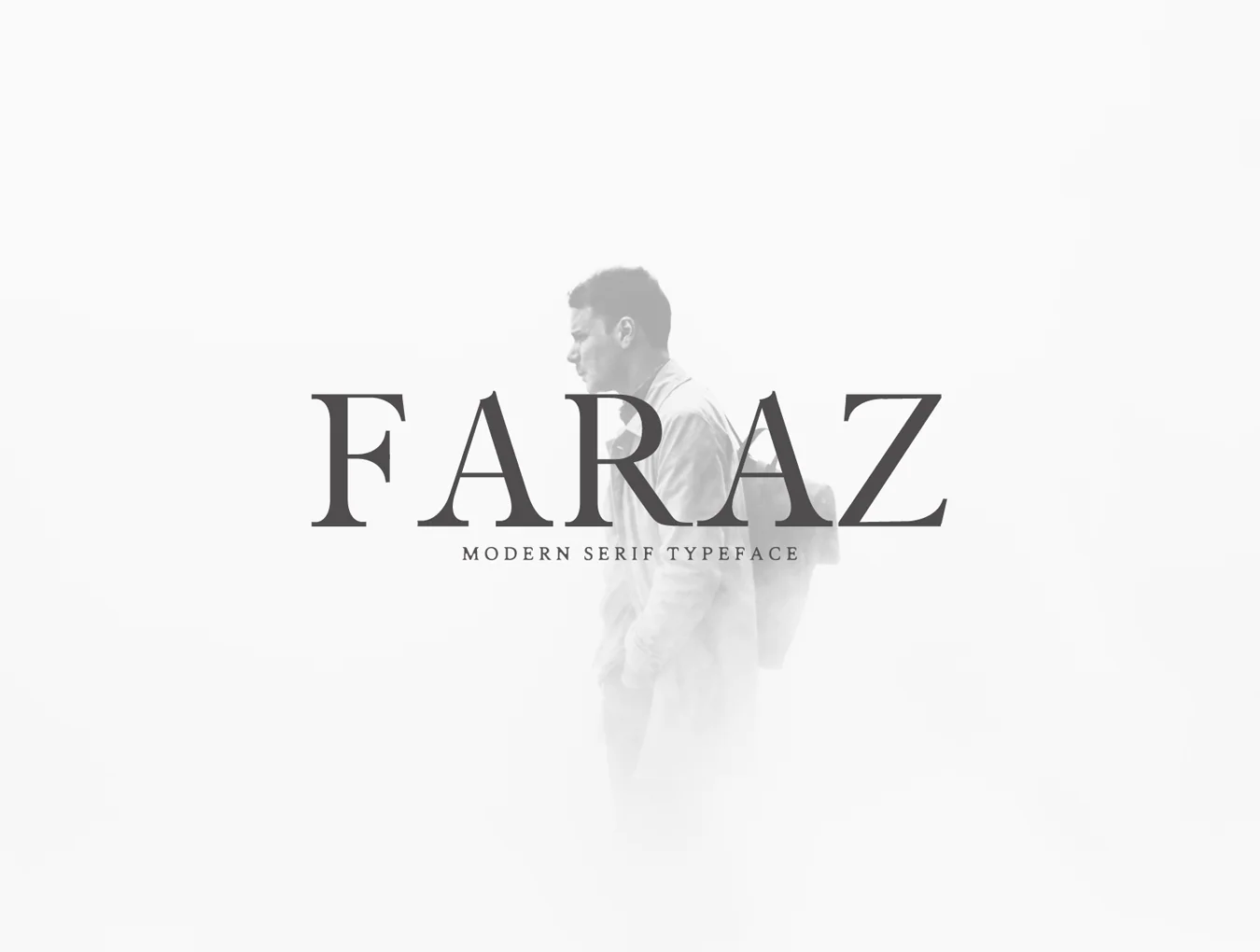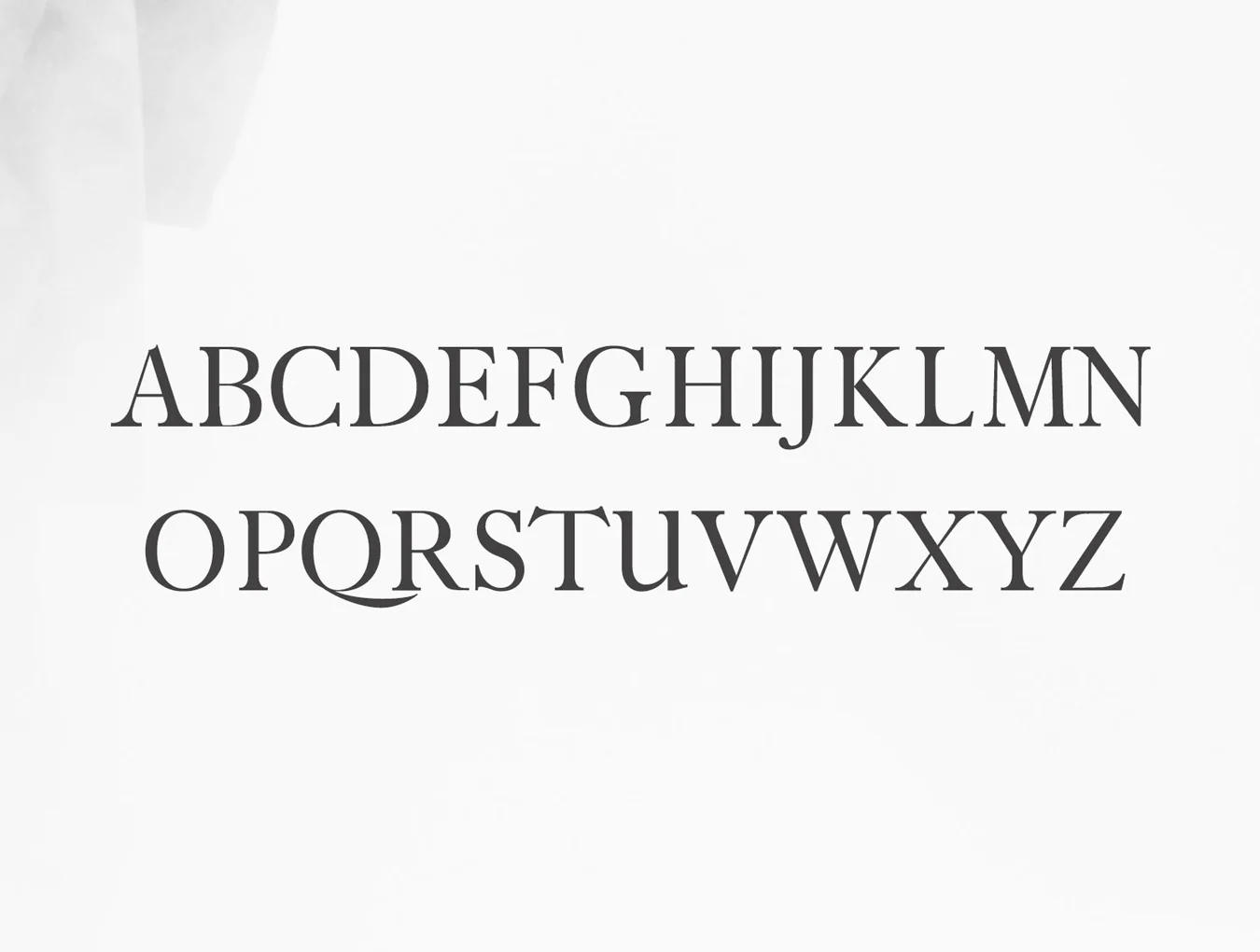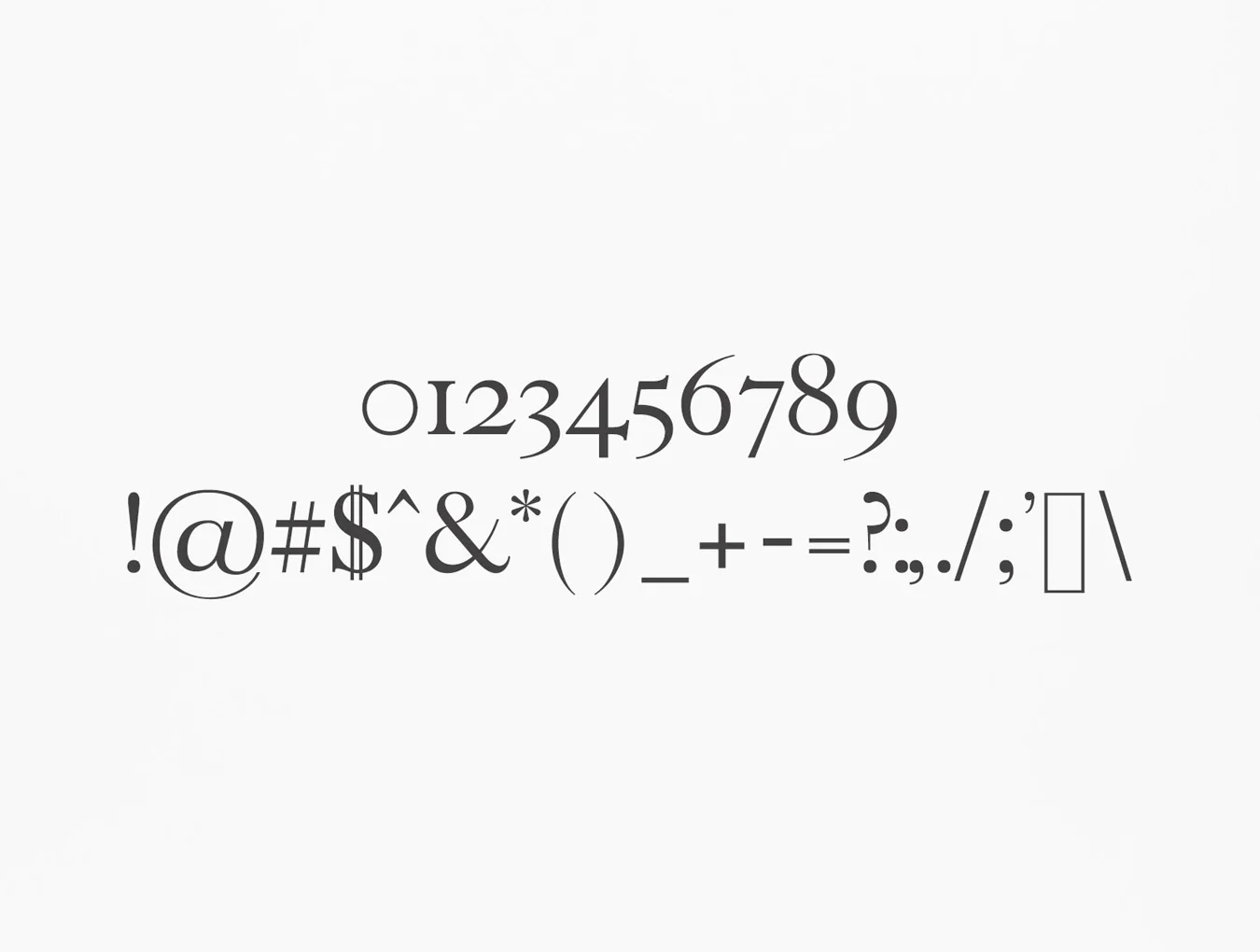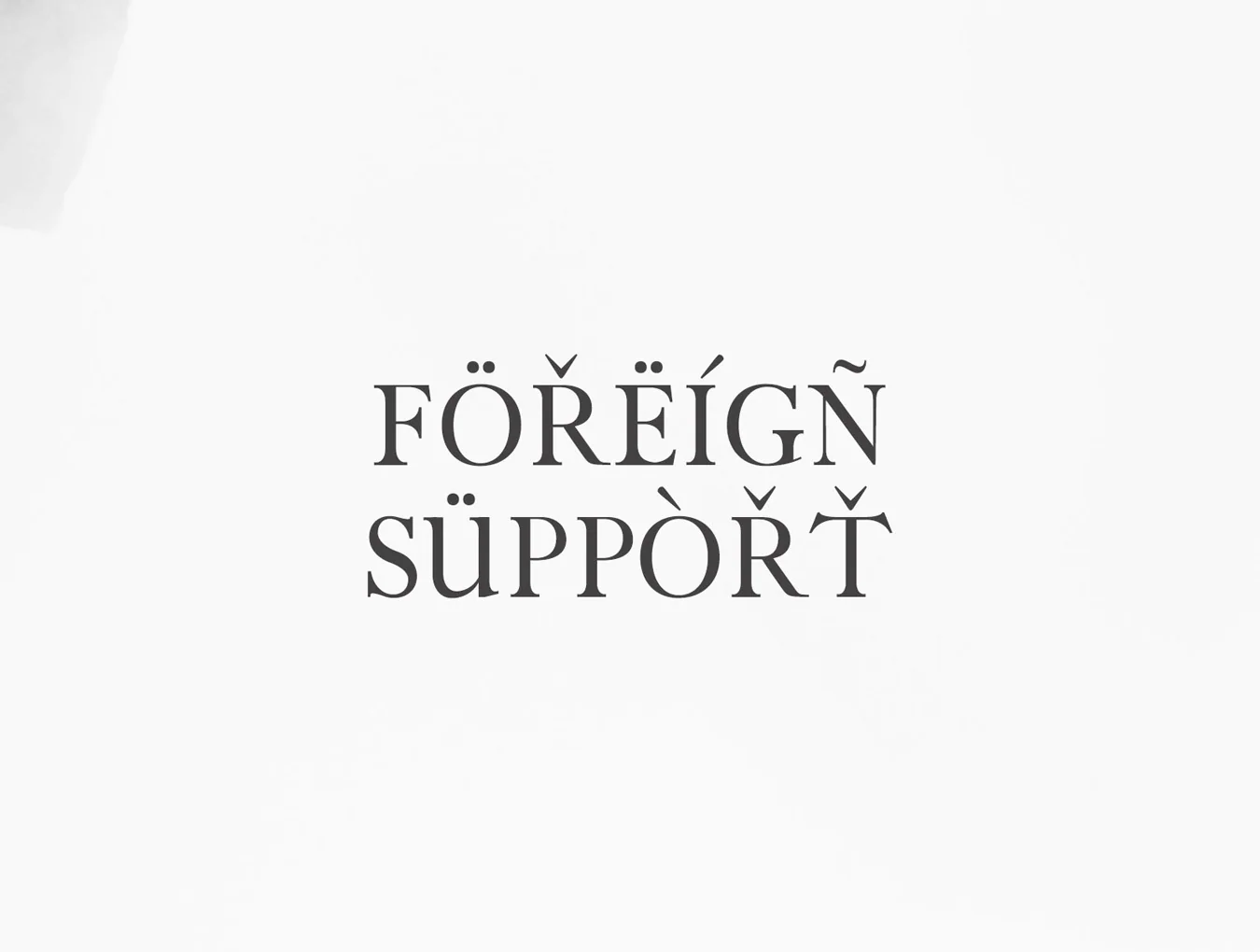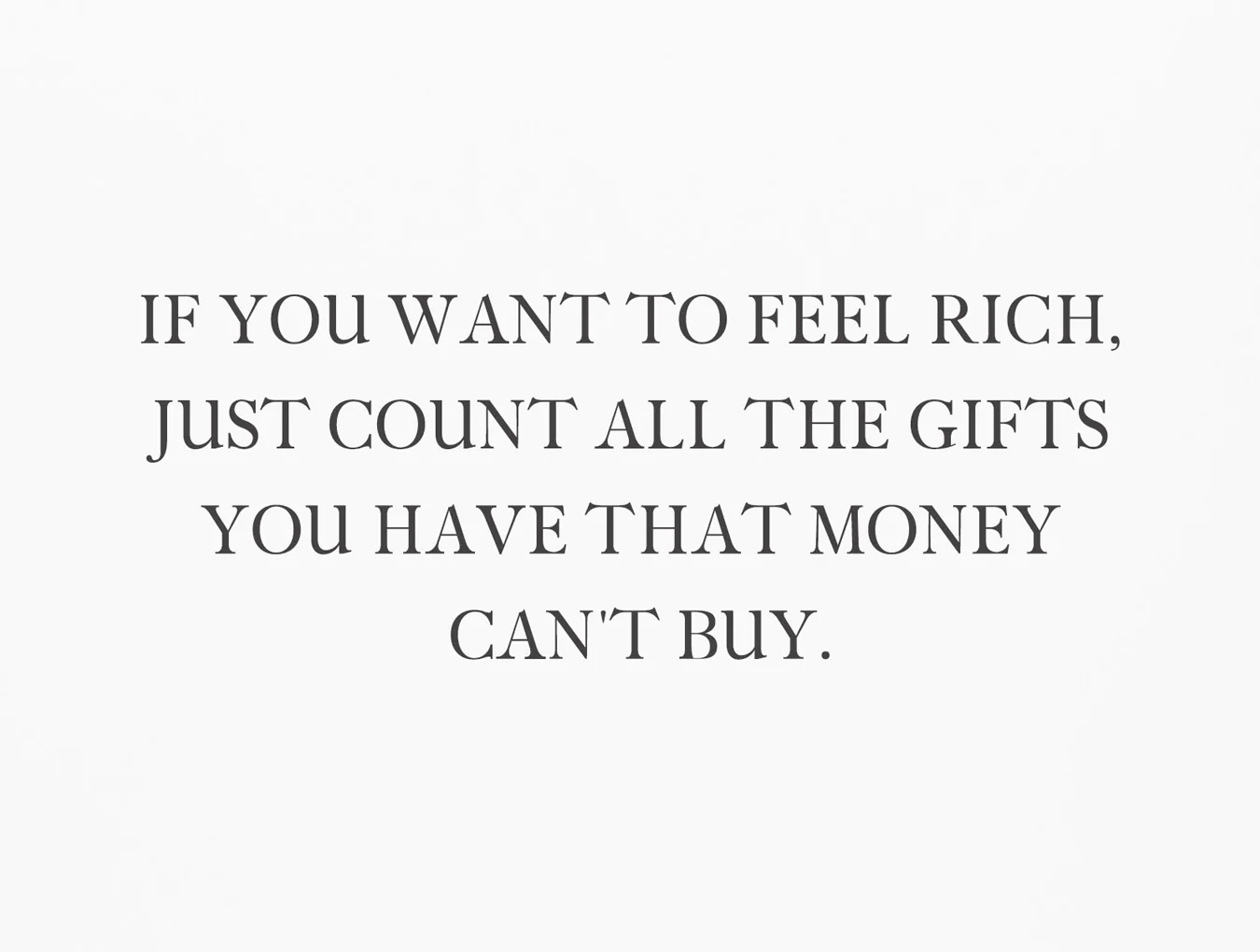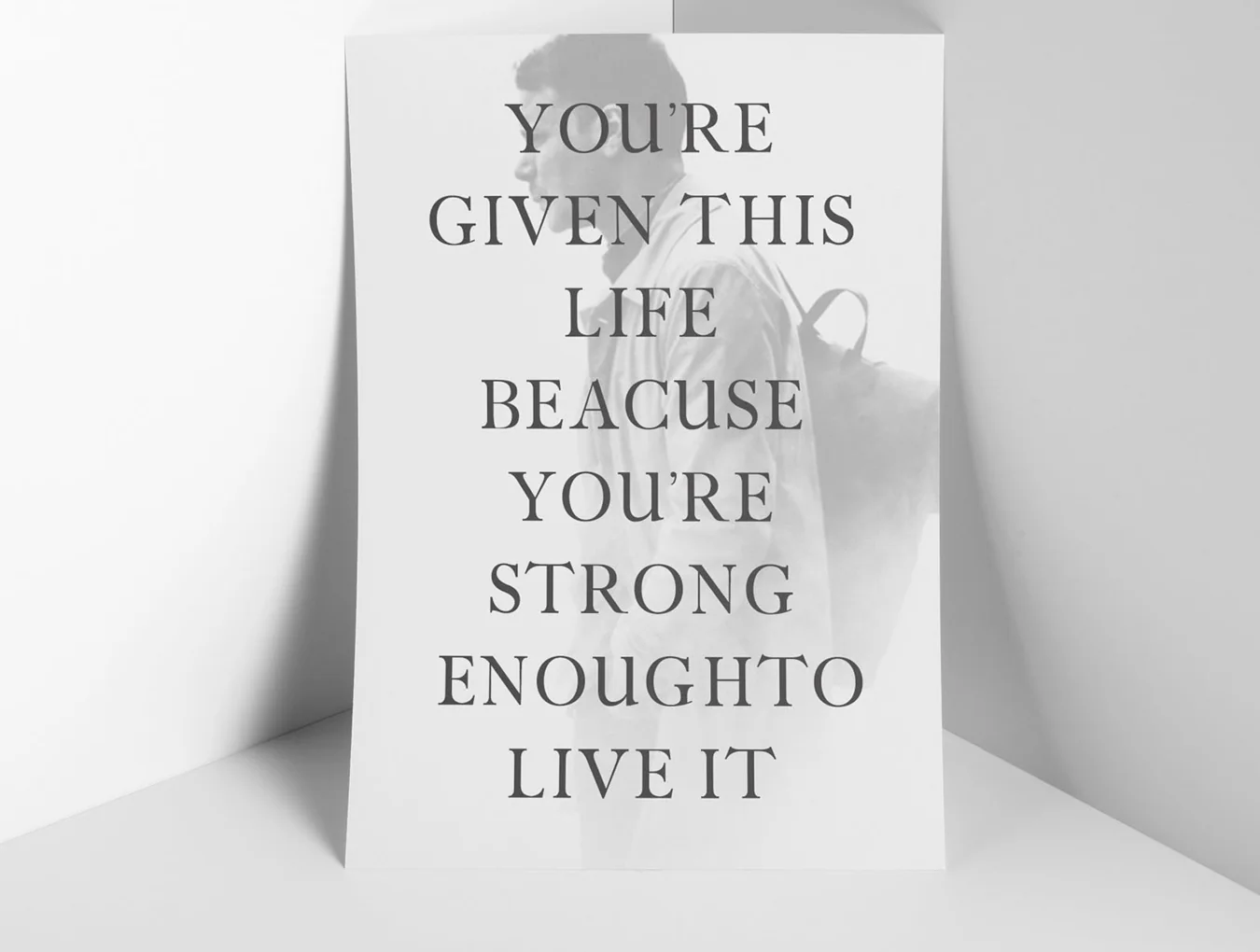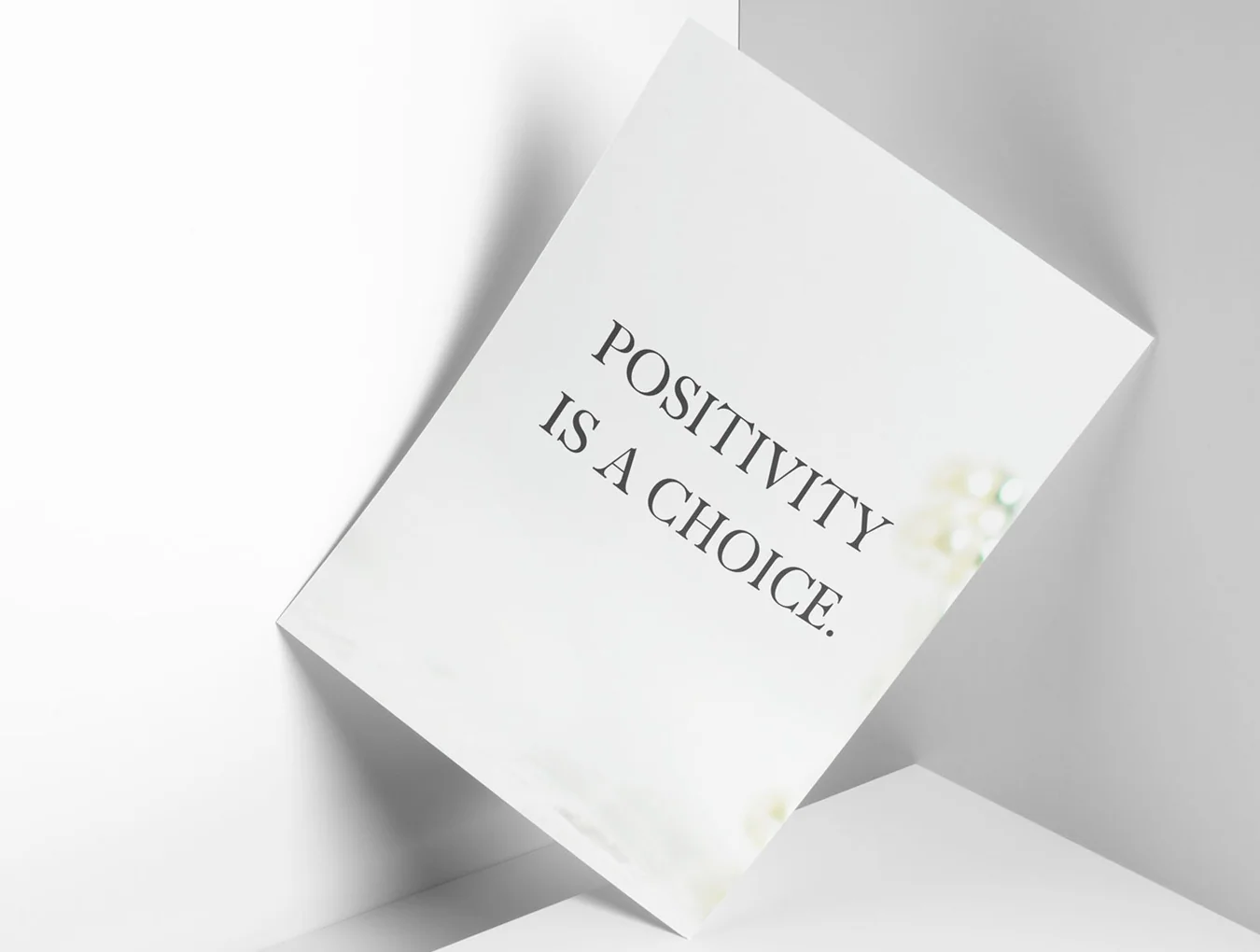
Faraz Modern Serif
Serif typeface style
260 glyphs plus multilingual characters
Regular, rounded, and outline variants
Faraz is a refined serif typeface available in three weights. It features essential glyphs plus non-English characters, making it suitable for headlines, posters, branding, packaging, presentations, logos, quotes, titles, magazine headings, web layouts, ads, invitations, books, and many creative projects.